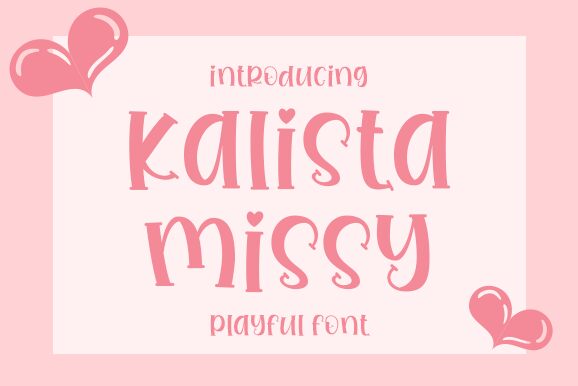
Kalista Missy, designed by Nirmala Creative, is a charming and playful valentine font that's perfect for adding a touch of whimsy to any project. With its delicate curves and quirky details, this semi-bold typeface adds a unique flair to invitations, greeting cards, social media posts, and more. Whether you're designing for Valentine's Day or simply want to inject some fun into your typography, Kalista Missy is the ideal choice. Try it out for yourself and see how it can bring your projects to life!
Kalista Missy